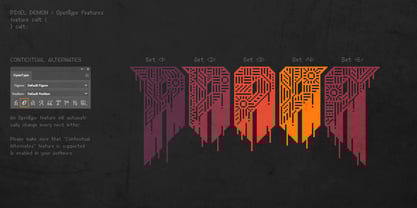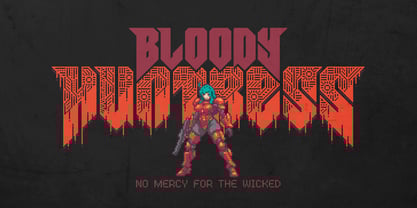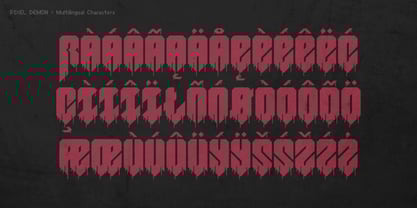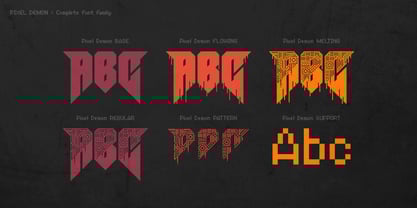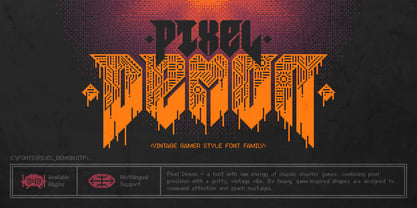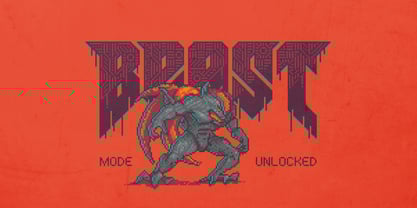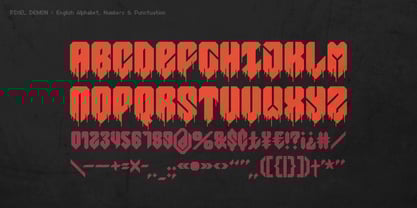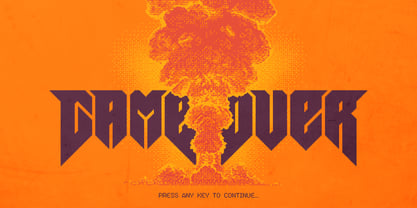
Pixel Demon
The Pixel Demon Font Family was designed by Gleb Guralnyk and published by Gleb Guralnyk. Pixel Demon contains 6 styles and family package options. More about this family
Hi! Pixel Demon — a font with raw energy of classic shooter games, combining pixel precision with a gritty, vintage vibe. Its heavy, game-inspired shapes are designed to command attention and spark nostalgia. A perfect weapon of choice for retro posters, gaming graphics, and bold digital art.
Pixel Demon Font has a unique OpenType Feature: each letter has 5 alternate characters that switch automatically to create an original effect.
Ensure that the "Contextual Alternates" OpenType feature is activated in your app to achieve the desired effect. The Pixel Demon font supports most European languages; however, please note that the special 5-letter feature is available only for the English alphabet (refer to the screenshots to view full set of available characters).
Pixel Demon full set includes 6 fonts: layered styles with and without patterns, versions with a melting effect, and a clean simple font for small supporting text.